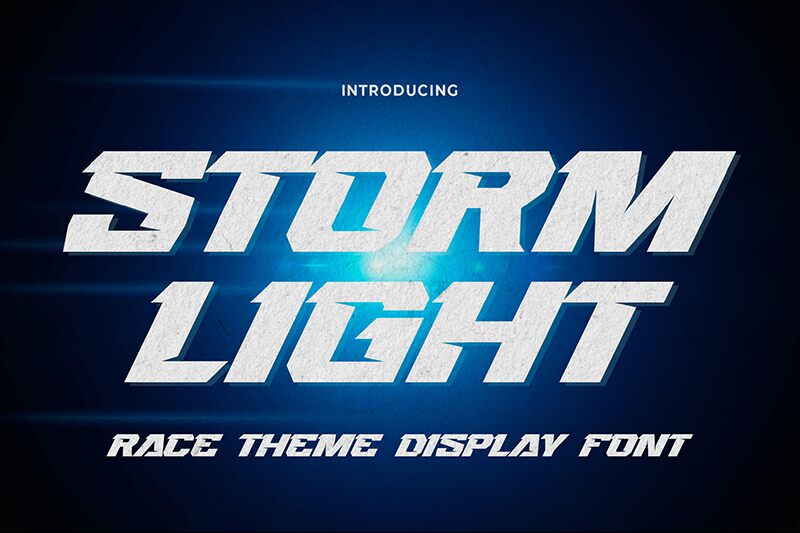
Stormlight, crafted by Gassstype, is not just a font-it's a declaration of boldness and innovation. With its extra-bold weight and expanded width, Stormlight captures the essence of the future in every character. The sharp angles and sleek lines exude a sense of forward motion, making it an exemplary choice for projects that aim to stand out and make an impact.
The display nature of Stormlight ensures it commands attention when used in headings, posters, or any design that requires a strong visual presence. Its futuristic style is reminiscent of cutting-edge technology and sci-fi aesthetics, offering designers a typeface that truly looks like it's from tomorrow.
Whether you're crafting the title sequence for a blockbuster movie or designing branding for the next big tech startup, Stormlight's imposing stature and contemporary flair will provide your project with an unforgettable typographic experience.